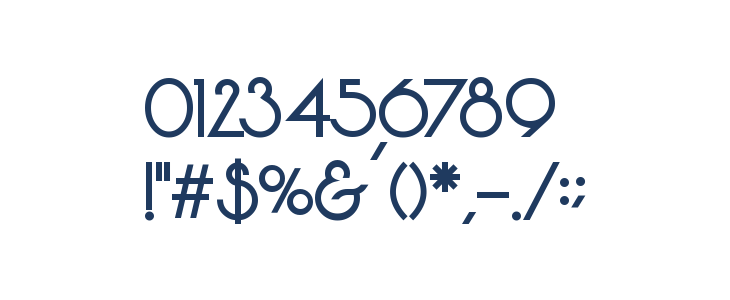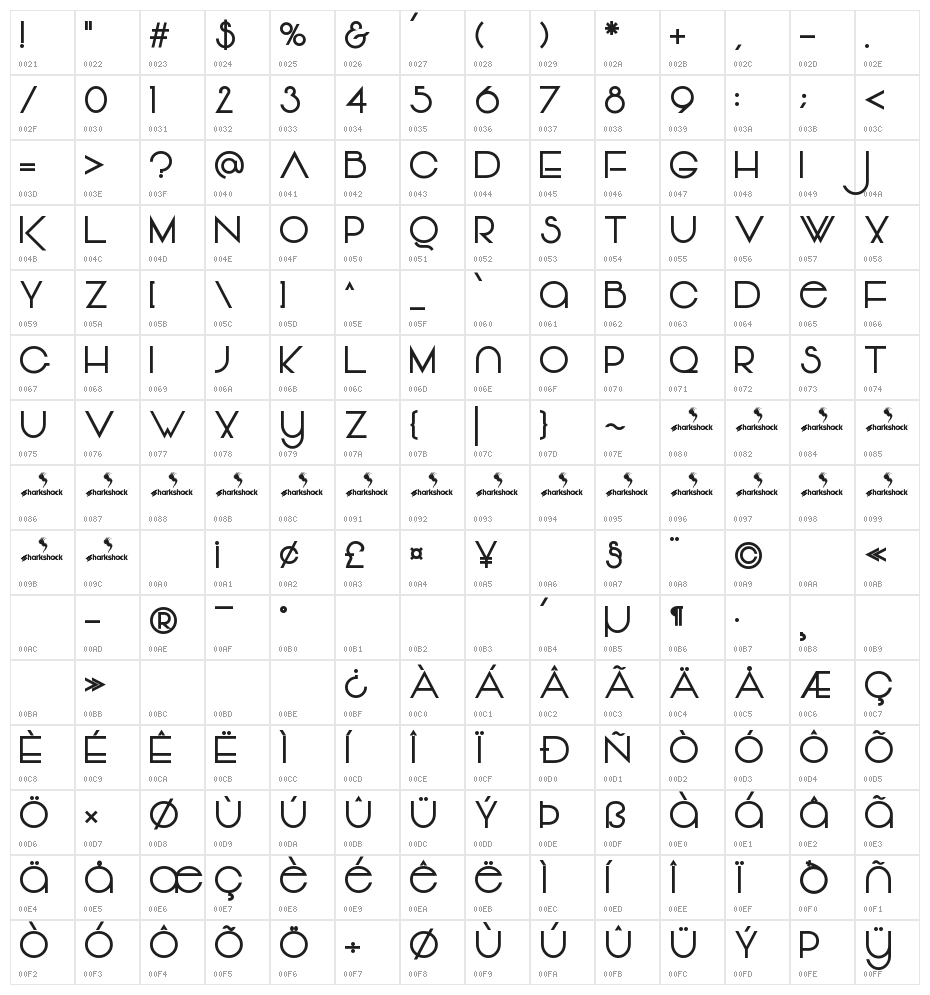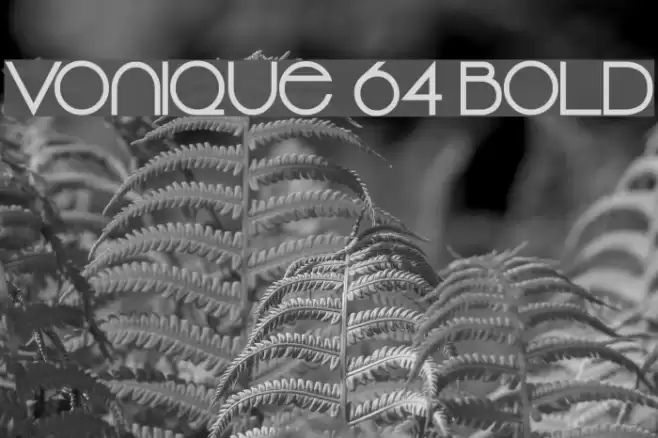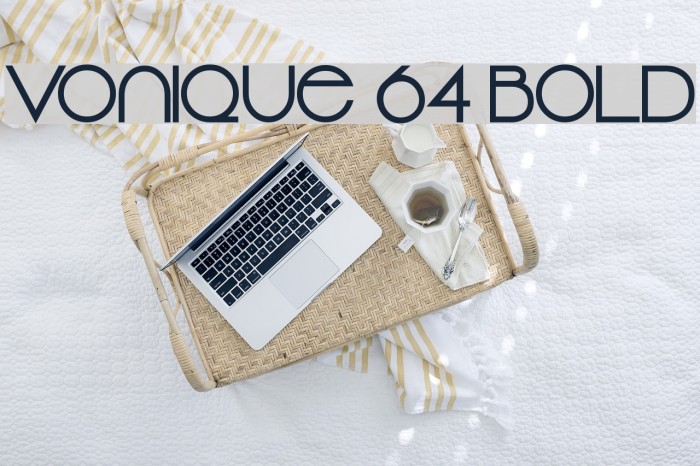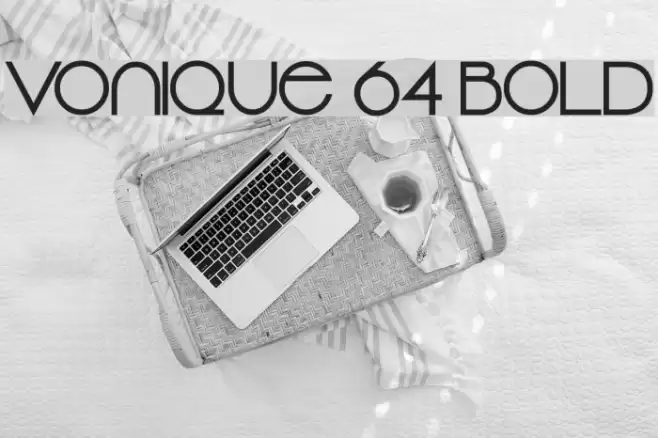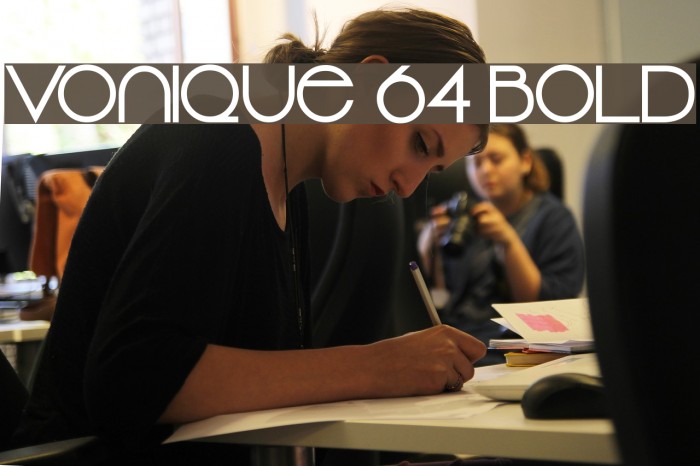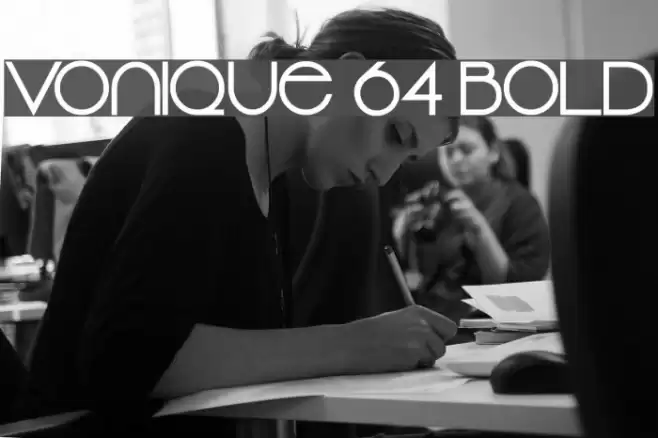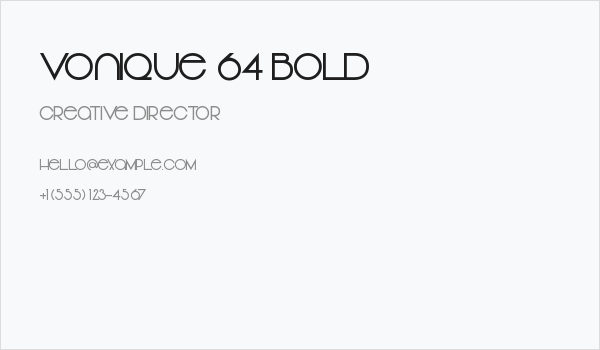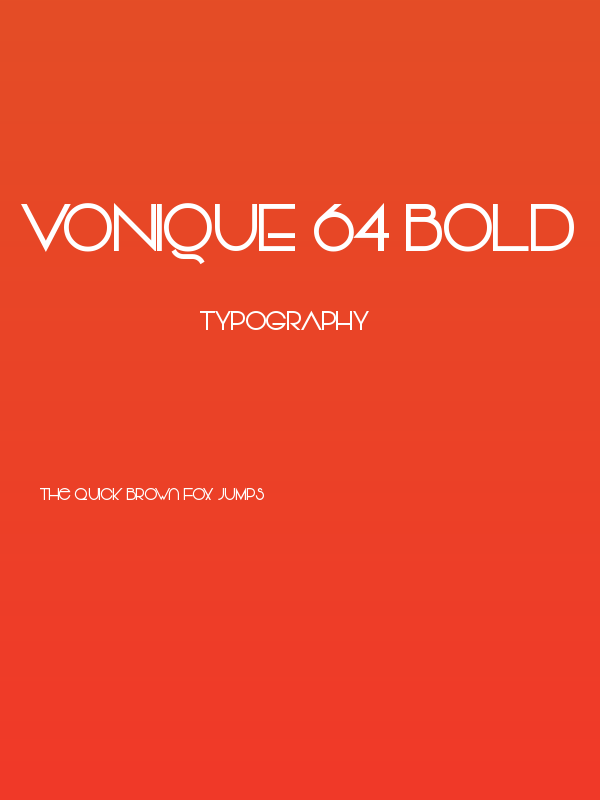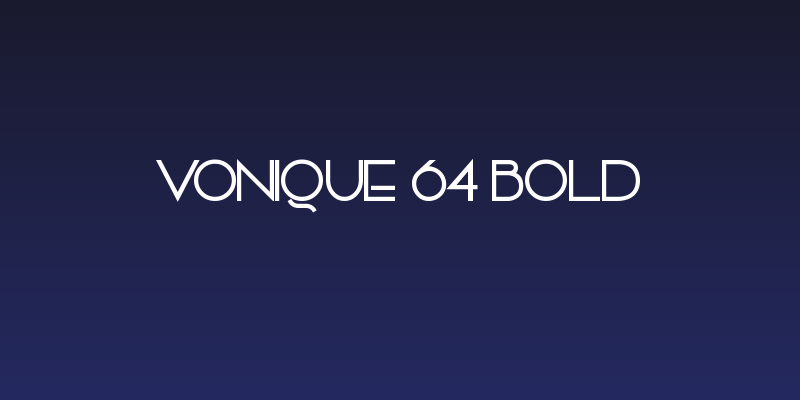
Vonique 64 Bold Font
Vonique 64 Bold Description
This font features a bold and geometric style with clean, sharp lines and a modern aesthetic. The uppercase letters are characterized by their uniform height and consistent stroke width, creating a cohesive and structured appearance. The lowercase letters maintain the same geometric precision, with some characters exhibiting unique, stylized elements that add a touch of flair. The numerals are bold and easily legible, matching the overall design ethos of the font. Special characters are included, maintaining the same bold and modern style, making them suitable for various applications. The font's design is both contemporary and versatile, making it ideal for projects that require a strong visual impact.